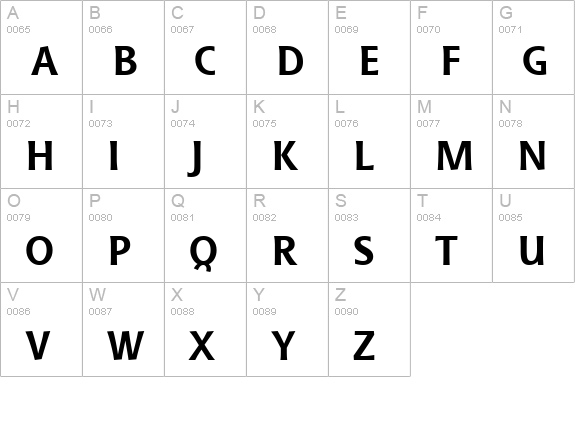
Shannon Bold is a strong, high-contrast variant in the Shannon typeface family \xE2\x80\x94 well suited to headlines, attention-grabbing titles, and strong calls-to-action.
Introducing Shannon Bold, a sleek and sophisticated font that exudes confidence and creativity. With its bold and strong letterforms, Shannon Bold commands attention and makes a powerful statement. Whether you're looking to create impactful headlines, eye-catching logos, or memorable designs, this font will elevate your projects to new heights. What sets Shannon Bold apart is not only its remarkable design, but also its accessibility. This font is free, allowing you to add a touch of elegance to your creations without breaking the bank. Its availability for free download at FontsMarket.com ensures that anyone can easily access this versatile typeface and unleash their creative potential. Shannon Bold encompasses the perfect balance between modernity and timelessness. Its clean lines and precise curves make it legible and versatile across various design applications. Whether you're designing for print or digital platforms, this font will adapt seamlessly, ensuring your message is delivered with clarity and impact. Captivate your audience with Shannon Bold's wide range of uppercase and lowercase characters, numerals, punctuation marks, and special symbols. Its extensive character set offers endless possibilities for customization and allows you to infuse your designs with your unique style. Ideal for branding, advertising, editorial design, and more, Shannon Bold is a font that effortlessly captures attention and leaves a lasting impression. Its bold and captivating appearance will help your designs stand out from the crowd, making it a valuable asset for designers, entrepreneurs, and creatives alike. Embrace the power of Shannon Bold and let your creativity soar. Download this font for free at FontsMarket.com and unlock a world of design possibilities. Whether you're a seasoned professional or just starting your design journey, Shannon Bold is here to elevate your projects and make a bold statement. Get ready to make an impact with this striking typeface.